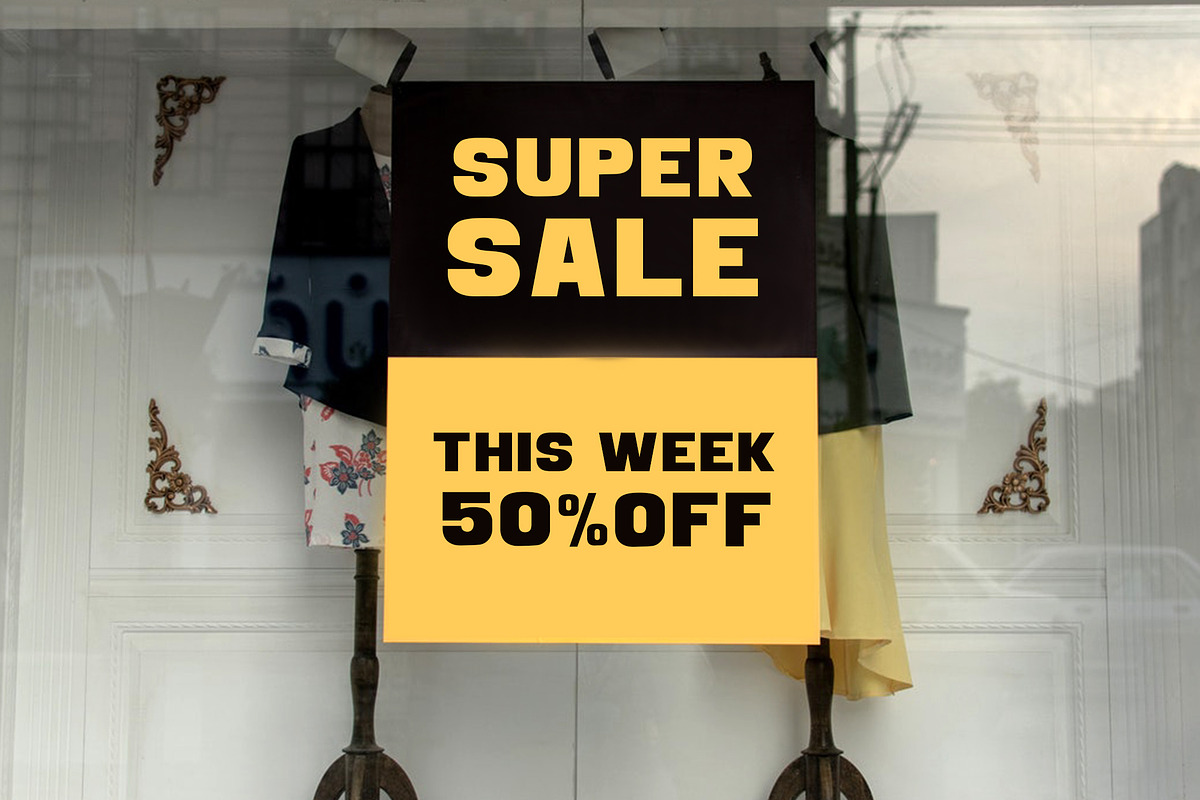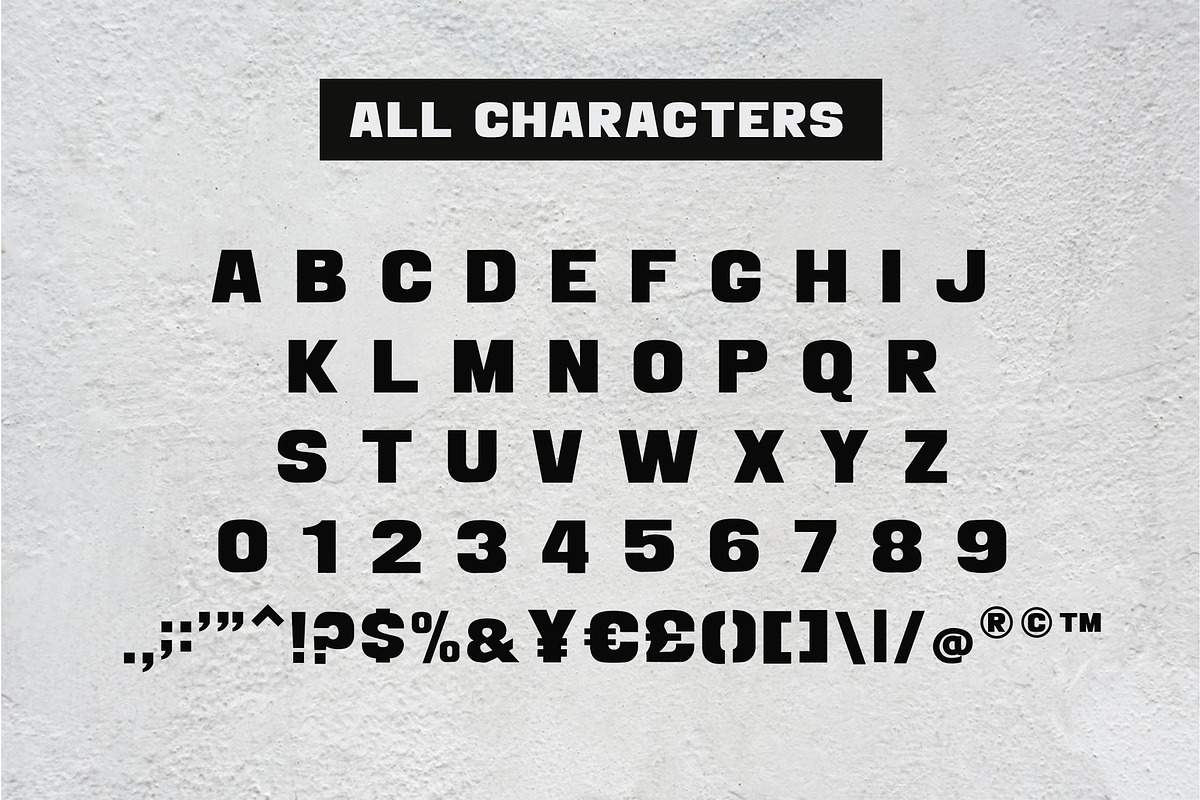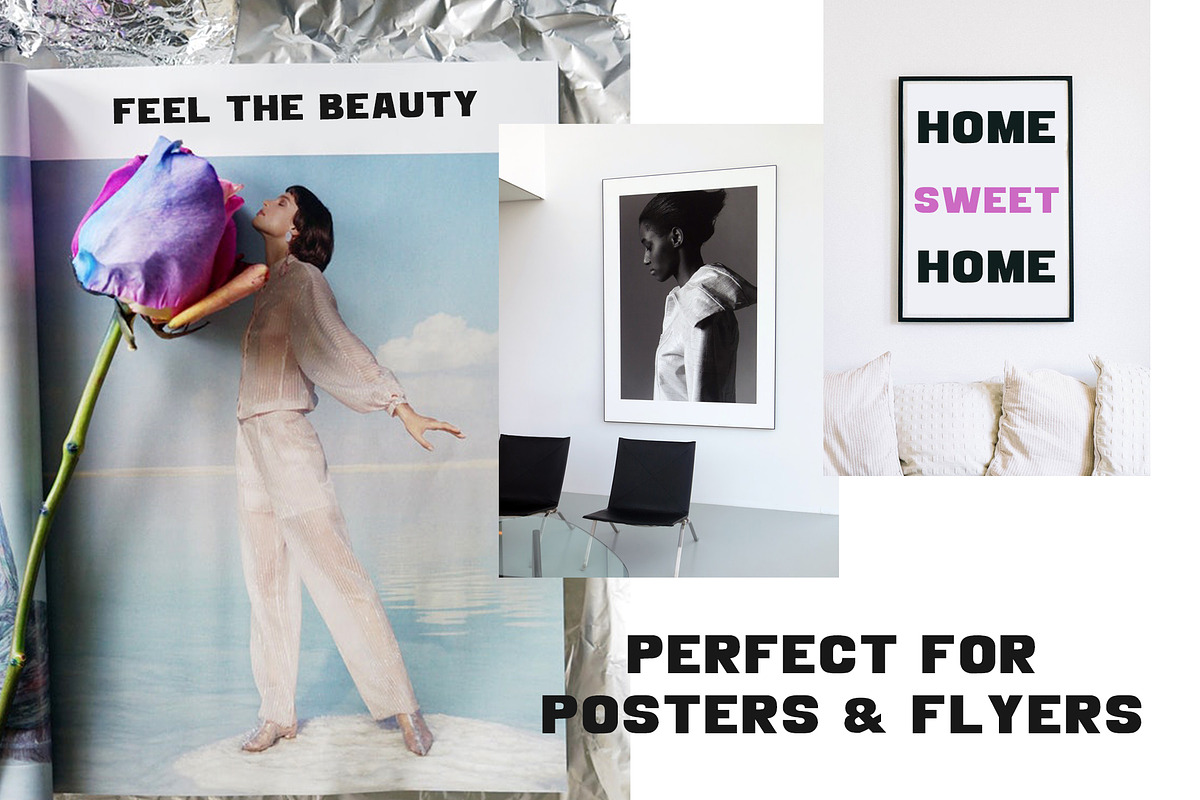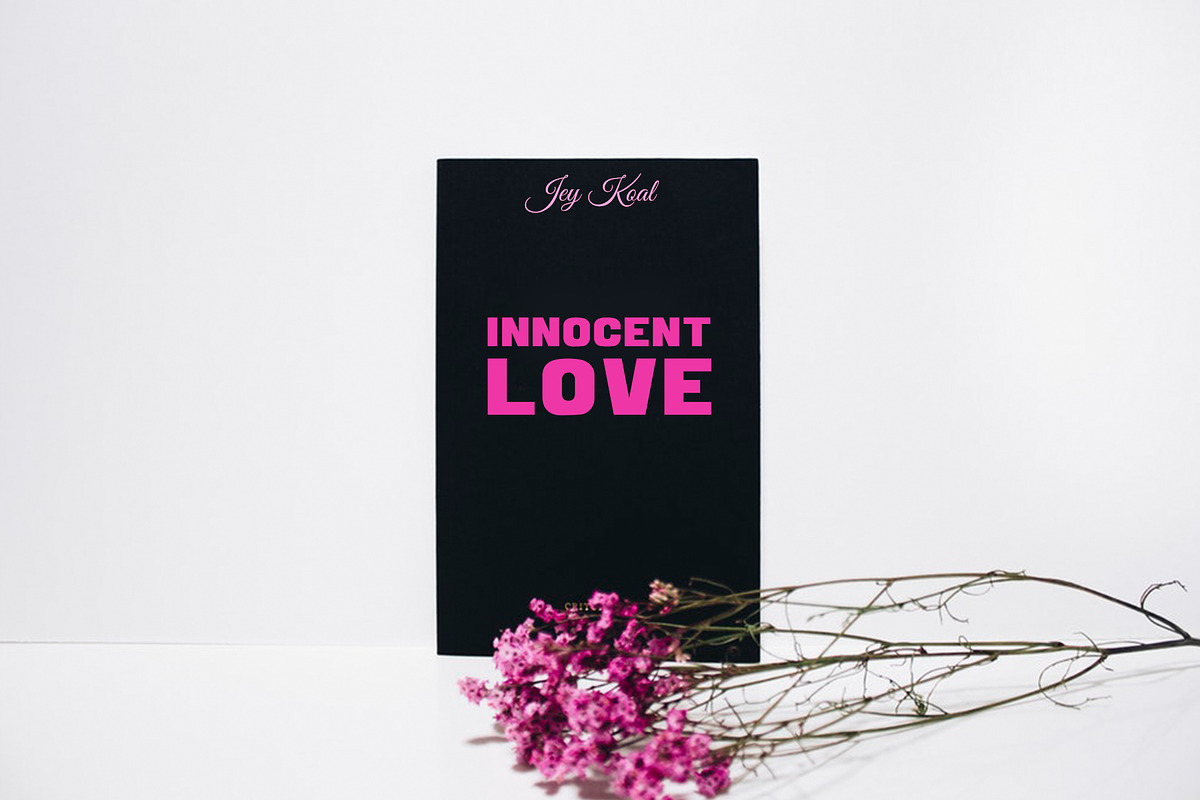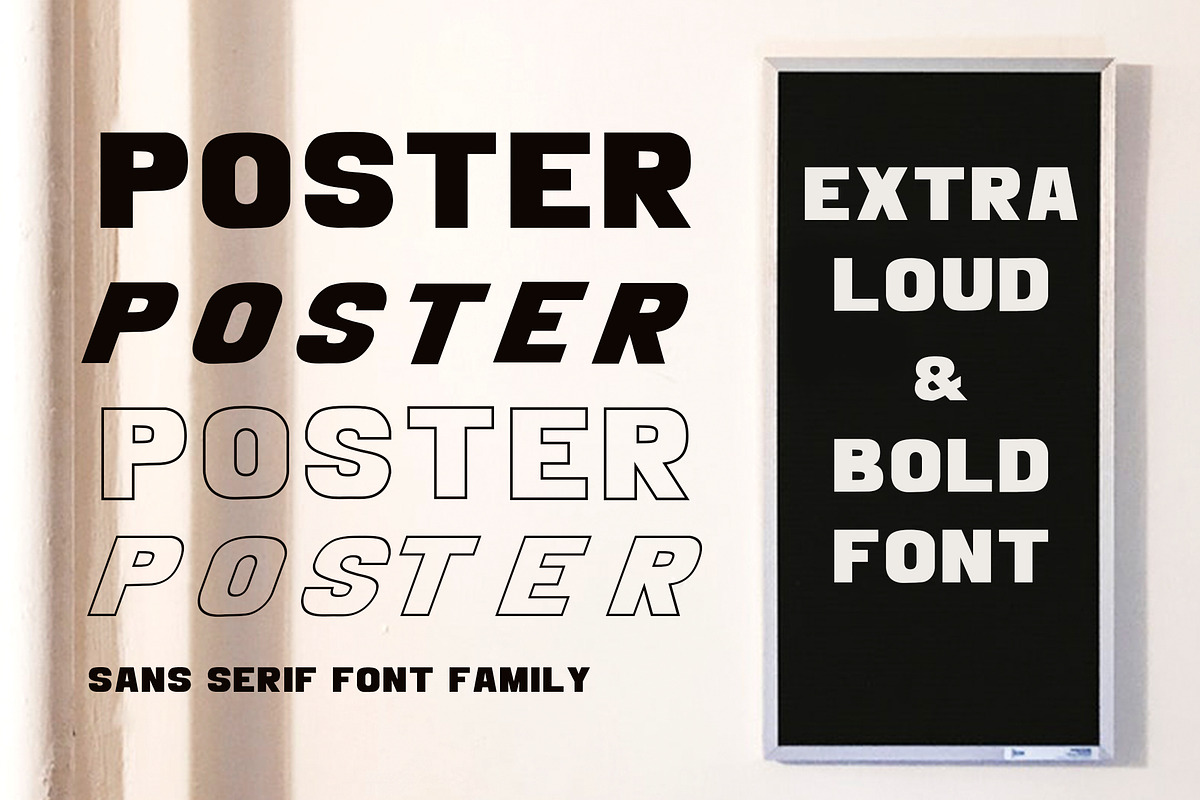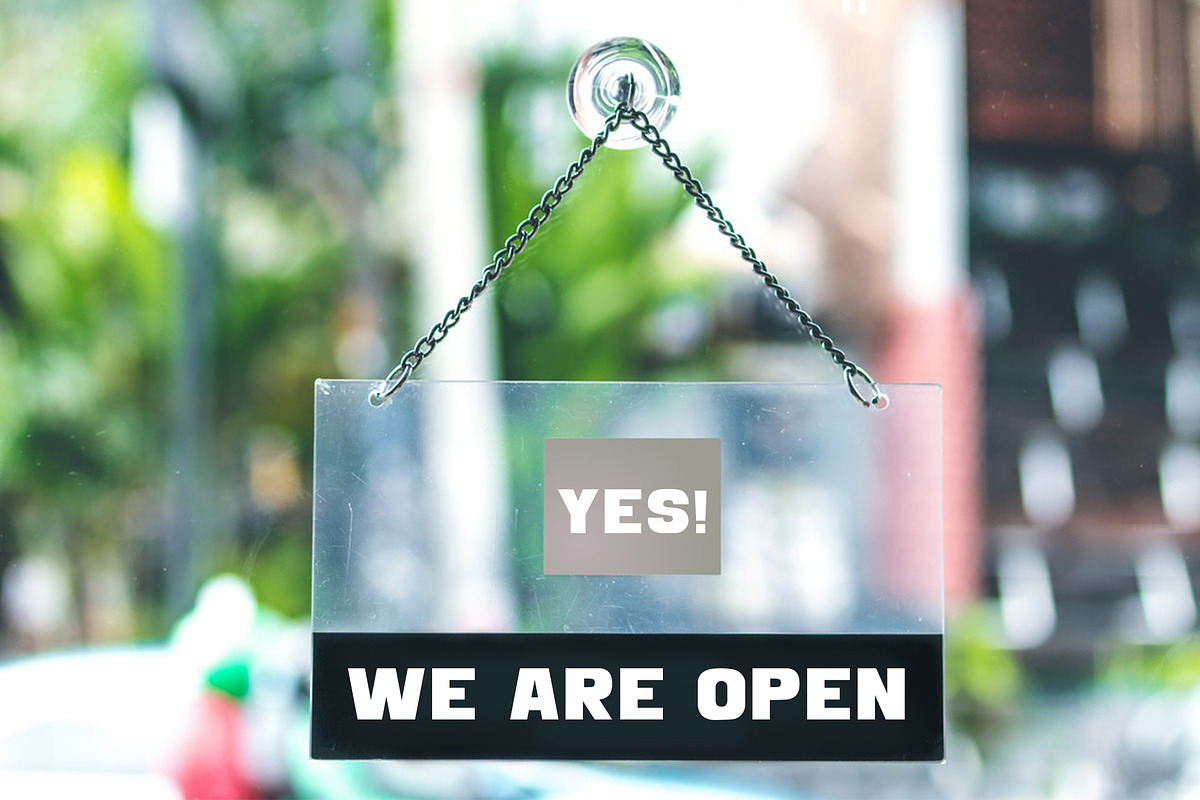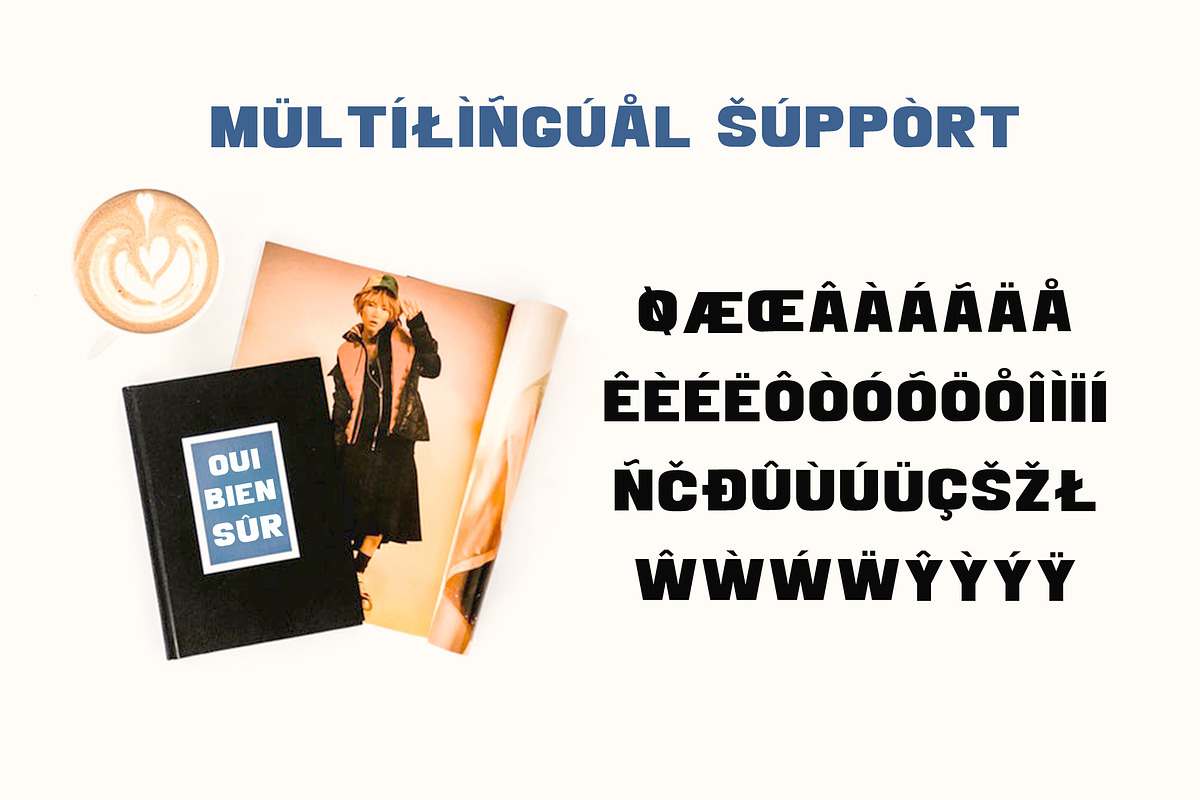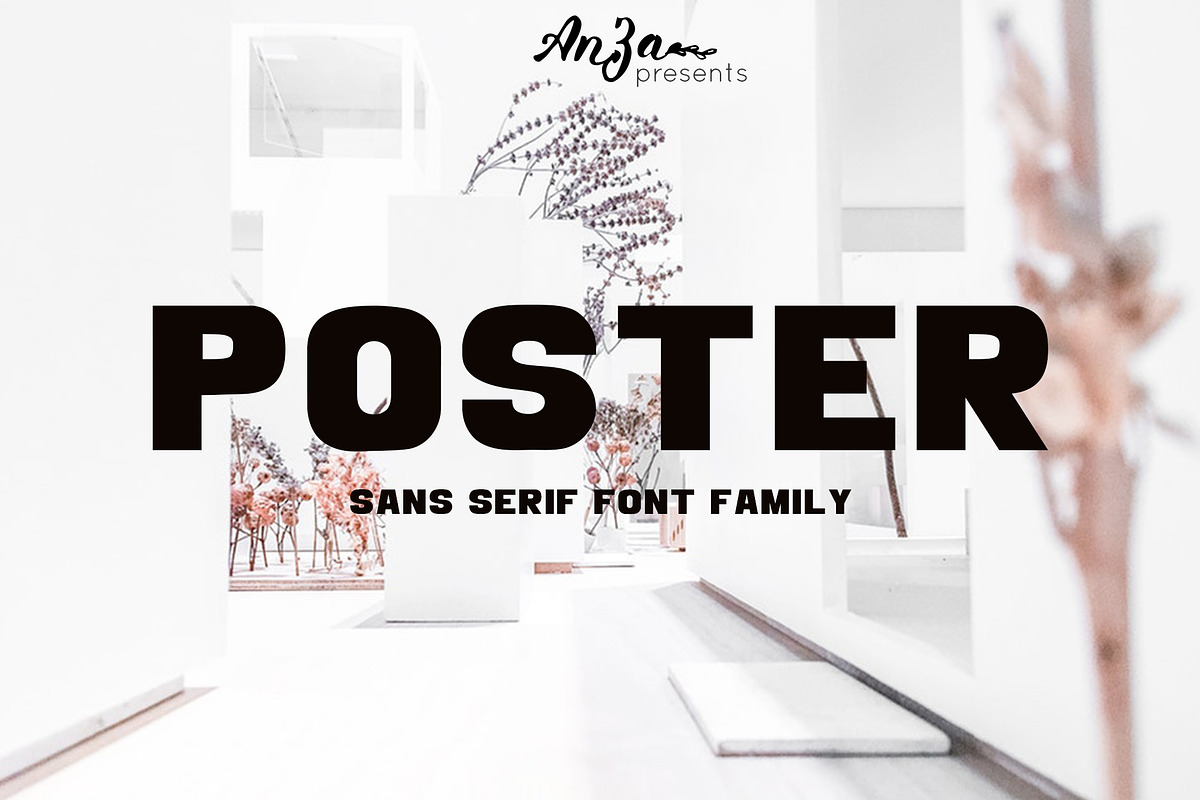
POSTER Sans Serif Font Family
POSTER is extra-loud bold universal and modern font. POSTER is perfect for designers looking to leave an impression. A simple but significant. It has minimal design. The owner of endless possibilities. If you want your message to scream and shout, then POSTER is your choice.
It is perfect for multiple contexts. Works great in posters, flyers, logos, headlines, packaging, advertising, branding and so much more. This font will easily help you to create the best urban and dynamic designs. Posters and flyers will be visible from afar with the help of massive letters' shapes.
POSTER Regular Italic
POSTER Outline Italic
Every font has uppercase letters, numbers & basic punctuation, multiligual support (French, German, Italian, Norwegian, Portuguese, Spanish, Swedish, Swiss German).